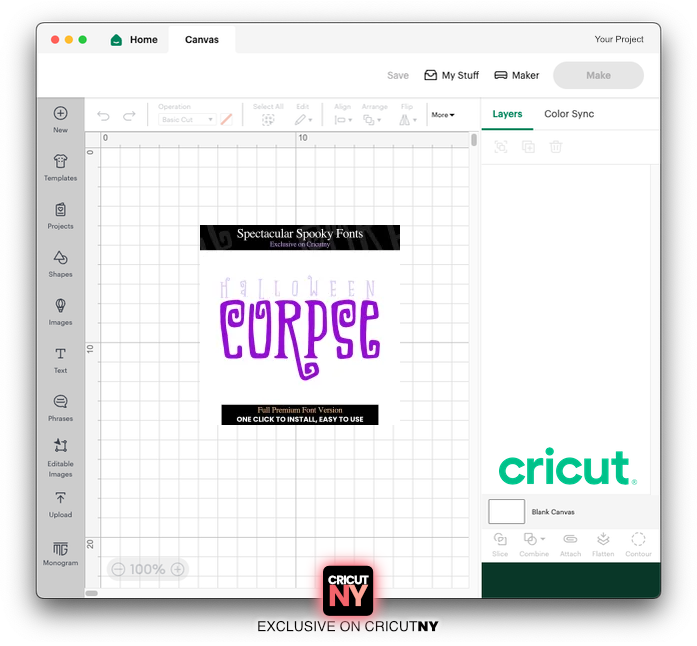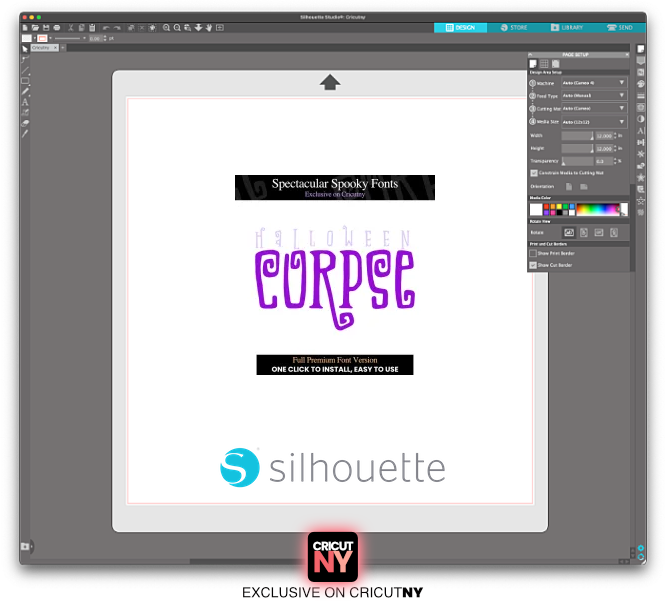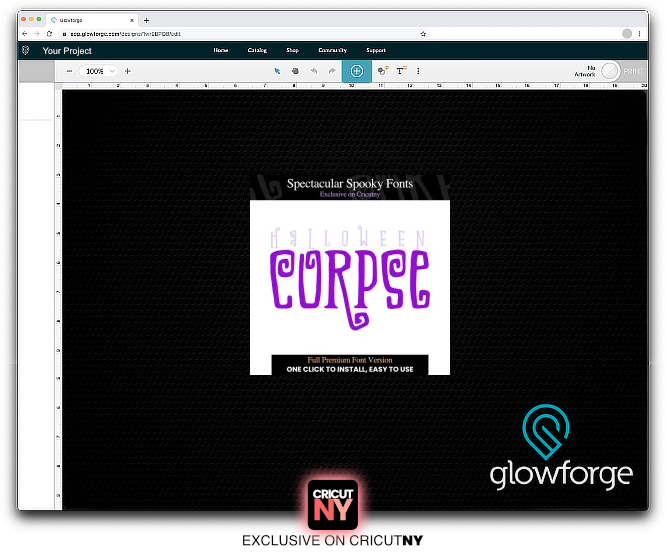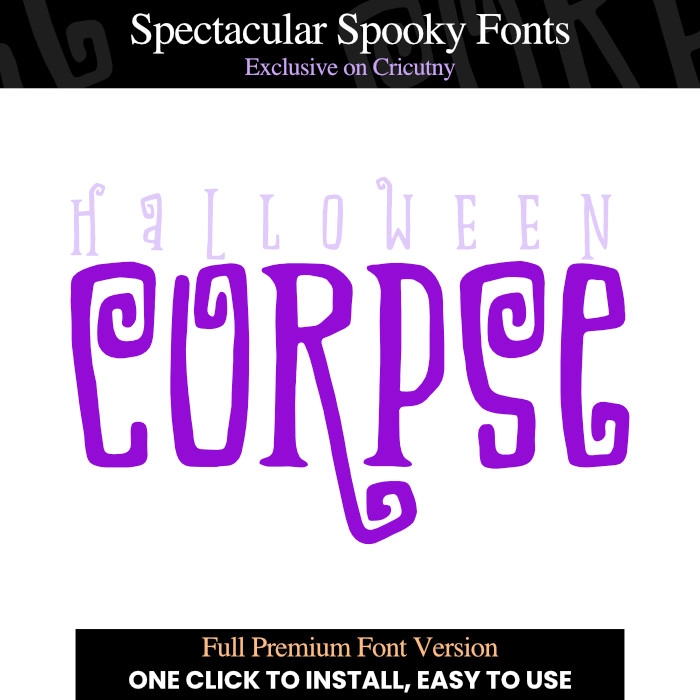
Halloween font, The Corpse Font
Wow, one of the Spectacular Spooky Fonts for your Cricut project, isn’t it?!
This font is probably one of the best Halloween font in Cricut design space this year.
For some, it could be a scary Halloween font, but the idea behind the font was to create something with a Tim Burton style.